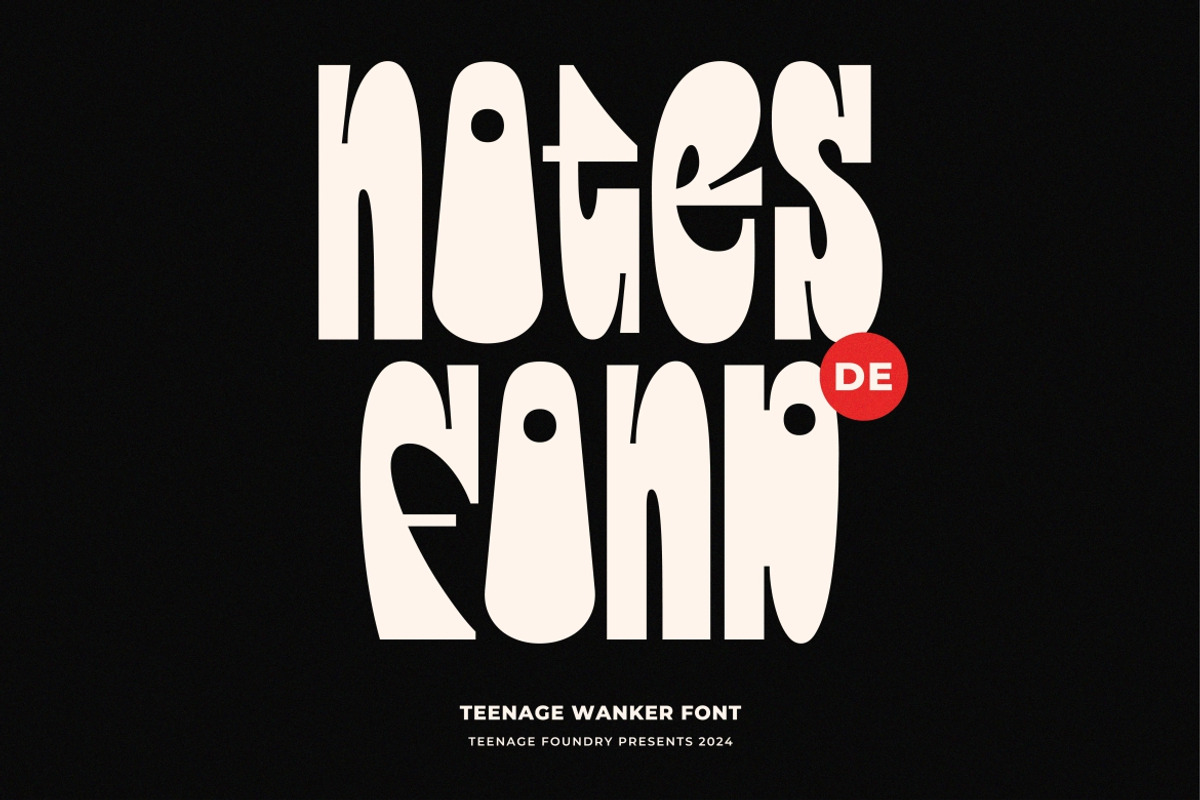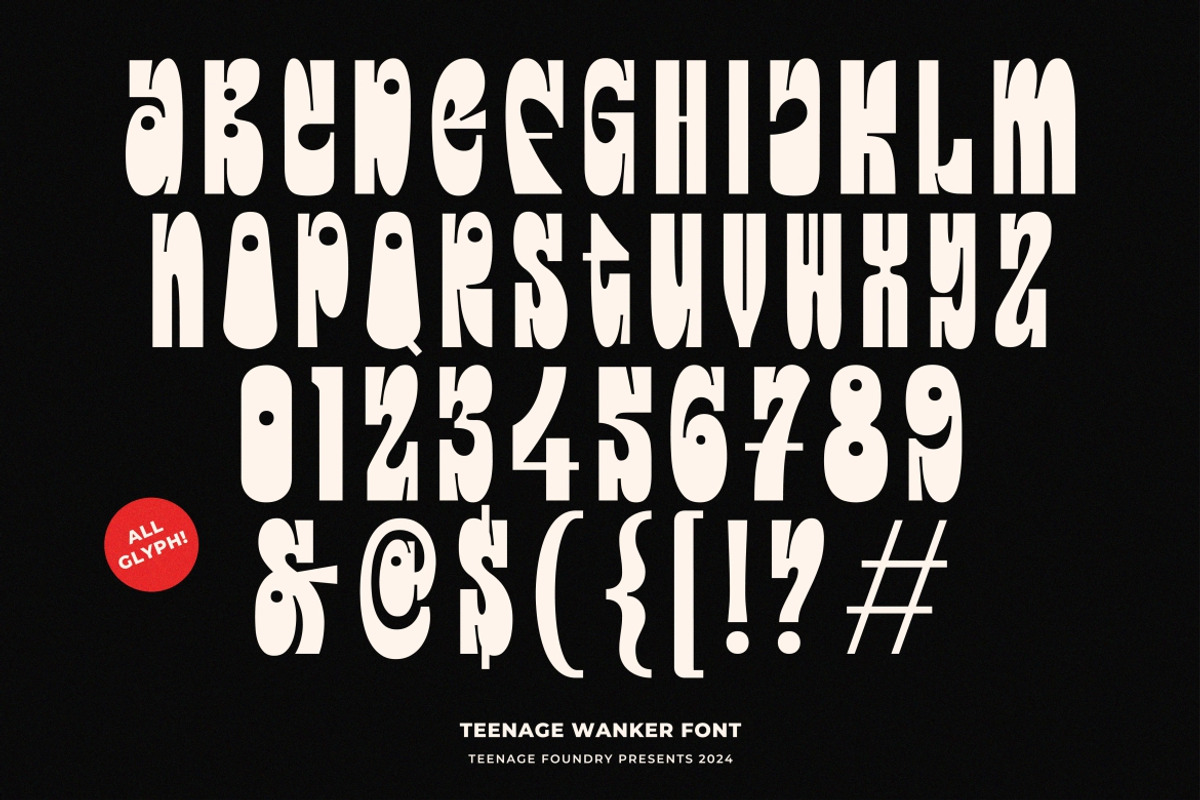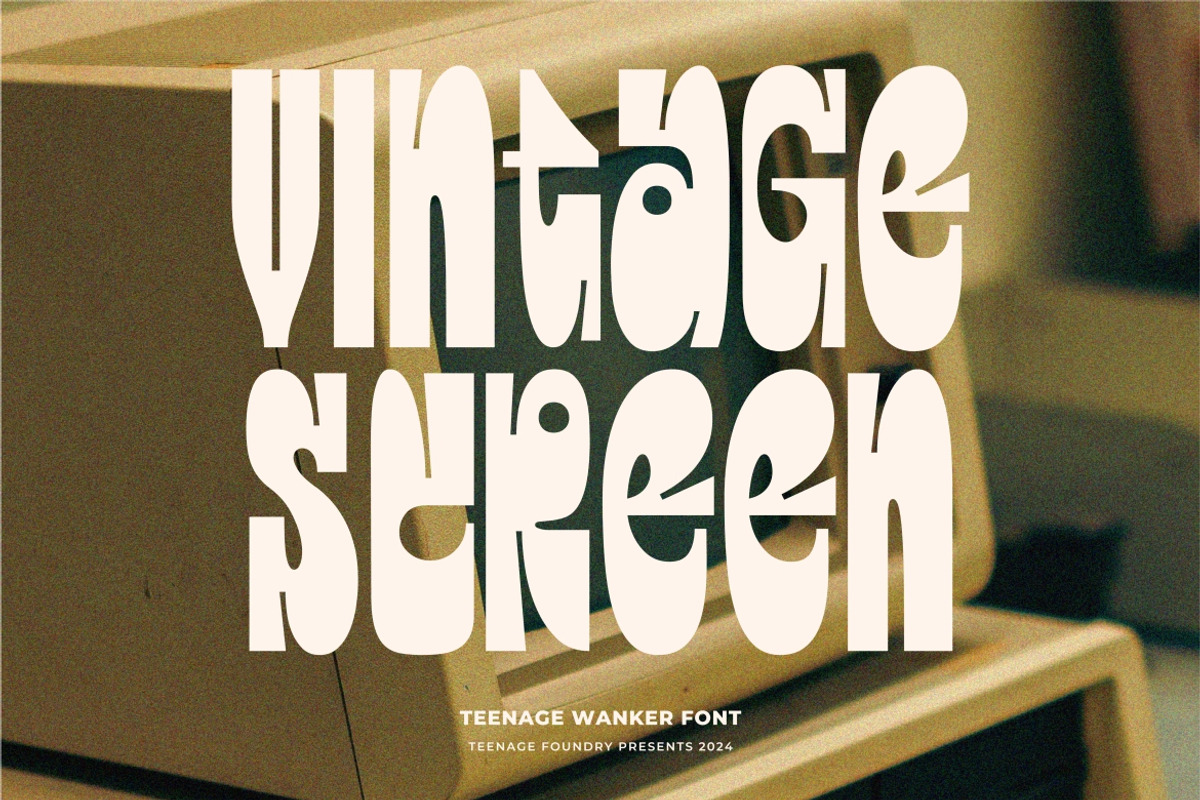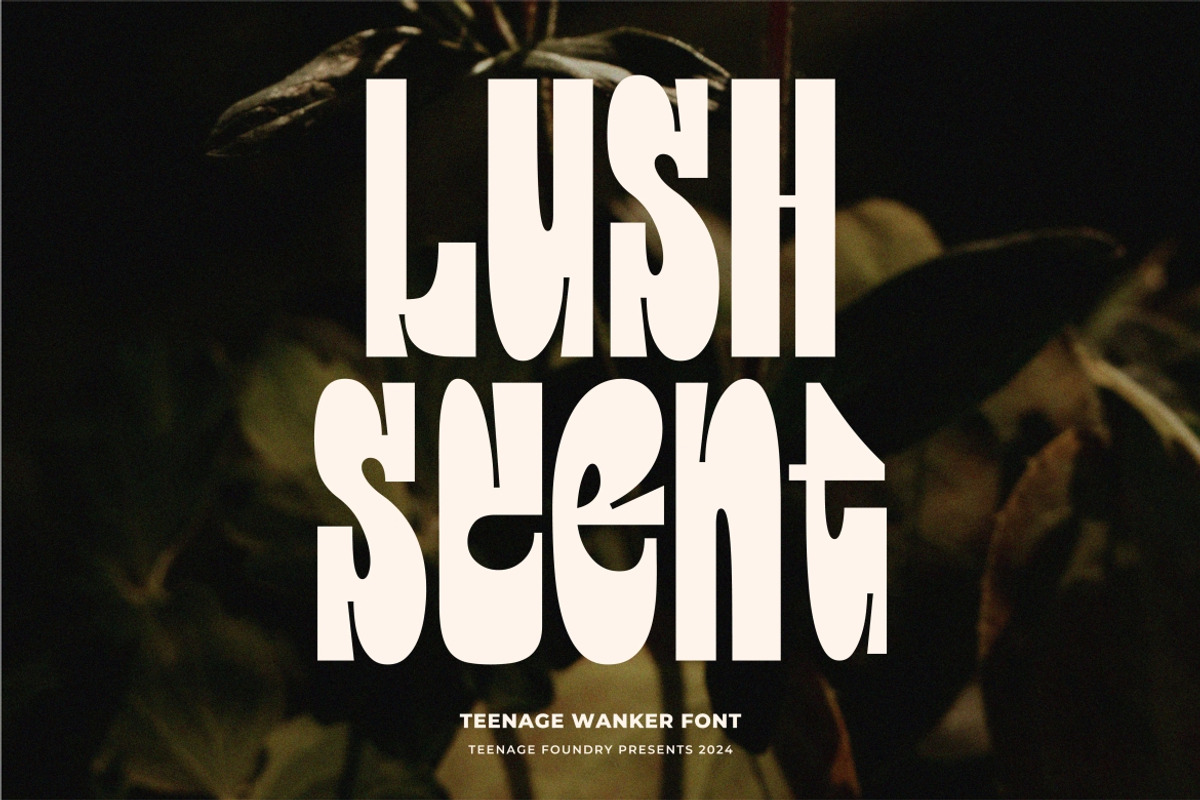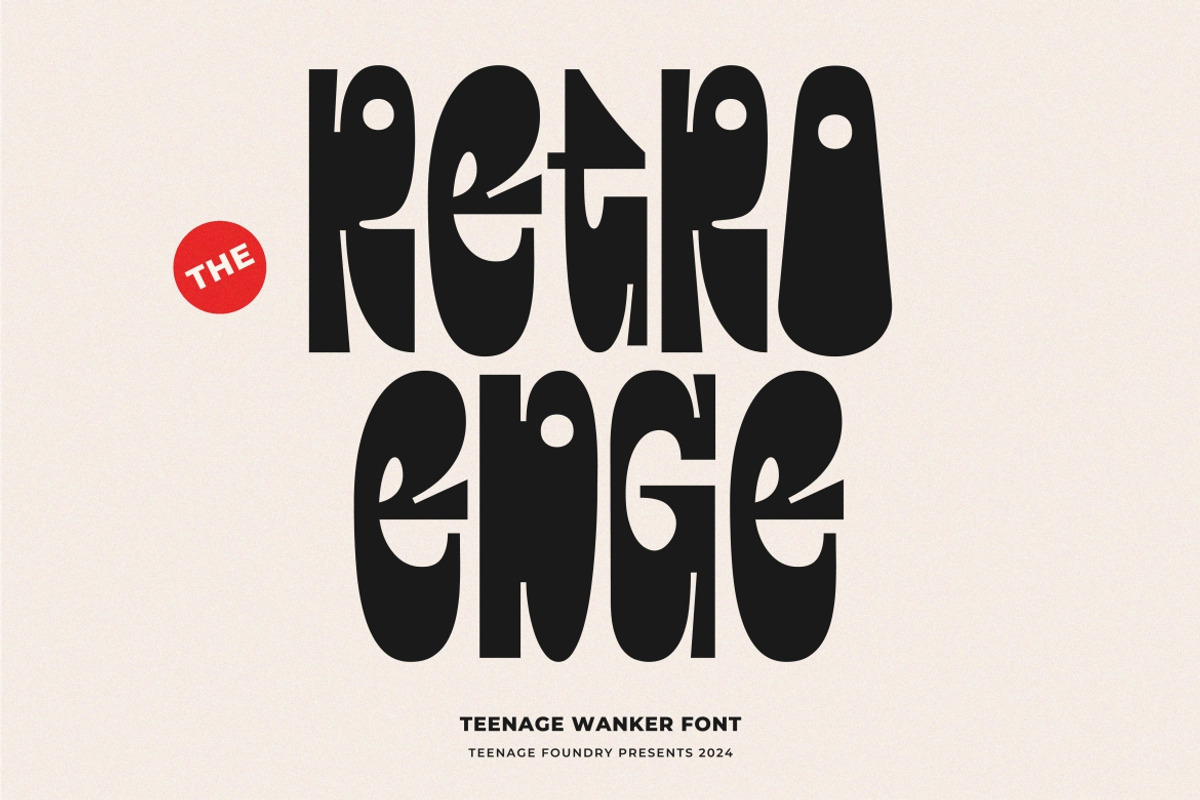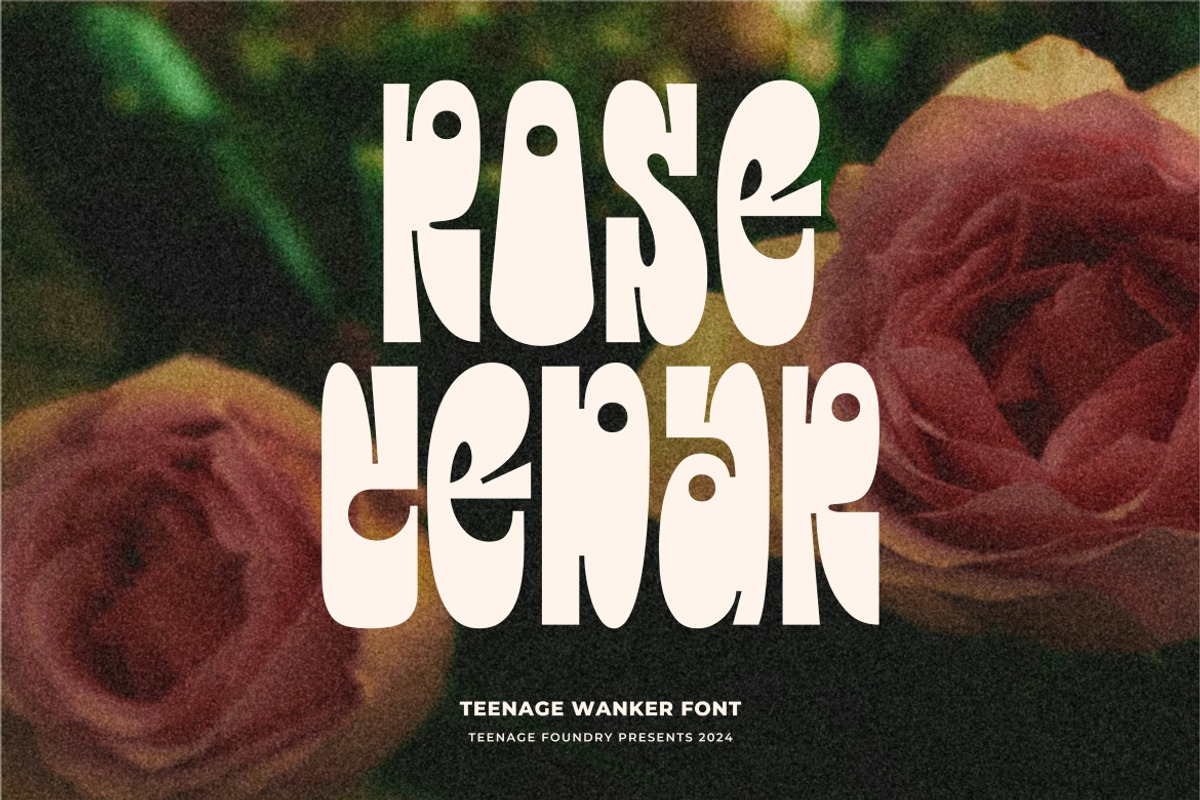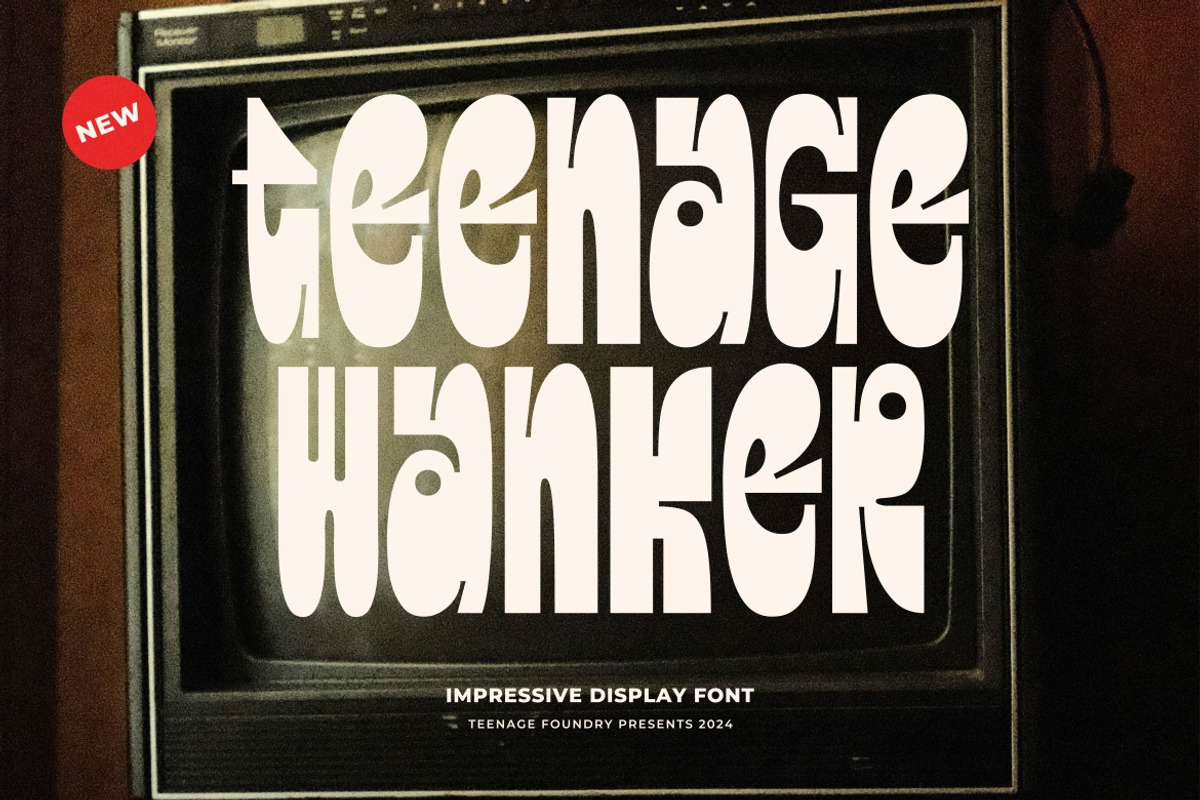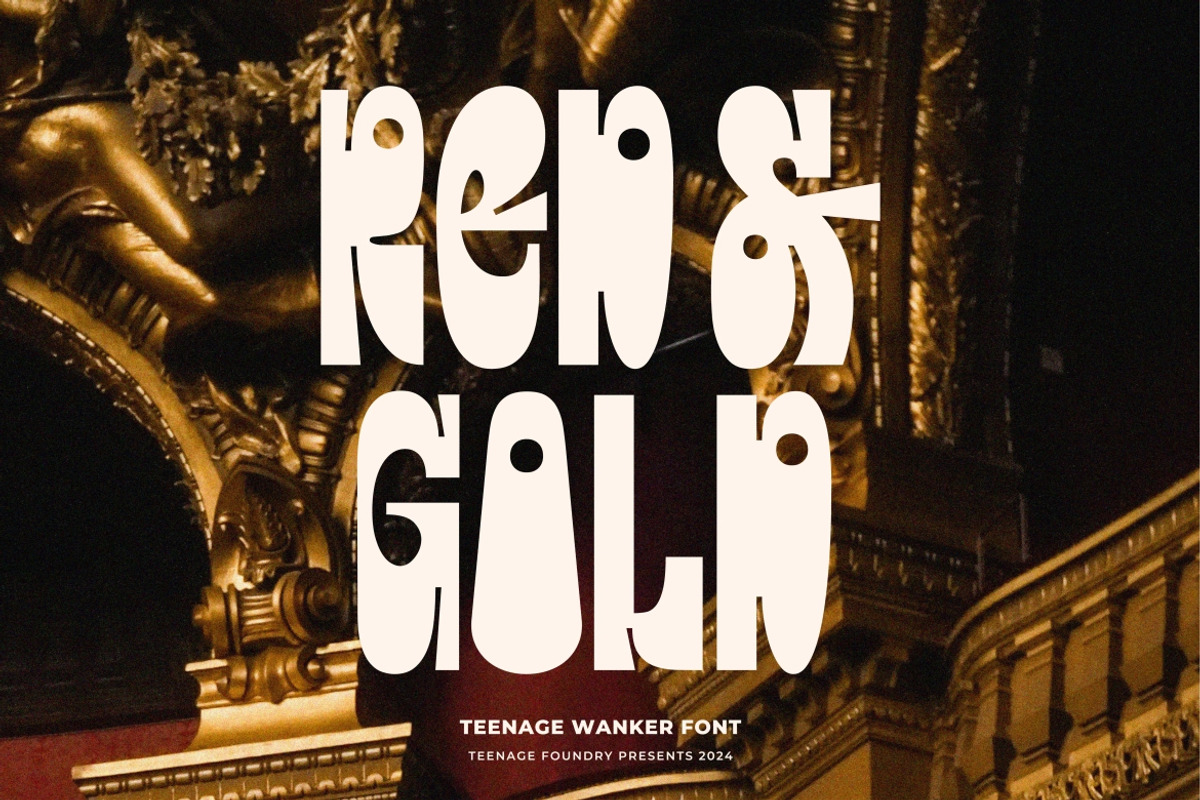
Teenage Wanker
Teenage Wanker – Impressive Display Font By Teenage Foundry
This font is a modern display serif with a random character, a combination of upper and lower case letters which creates a retro and unique impression.
Teenage Wanker is best used for logotypes, titles, headers, signage, clothing designs, invitations, posters, flyers, greeting cards, packaging, book covers, printed quotes, album covers, films, etc.